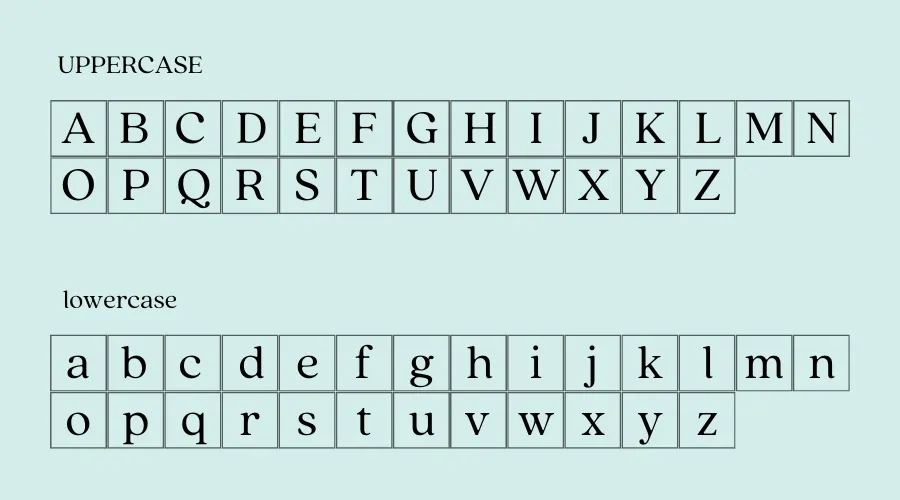
About Quincy CF Font
Today we discussed another stylish typeface that Connary Fagen created, Quincy CF is a classic, serif font that's perfect for all kinds of publications this typeface was published in 2015. The font includes eight weights from extra light to black, plus italics allowing for a range of design possibilities. this typeface is ideal for logos and headlines, as well as setting text in magazines or books.
To maintain the original look of the font, many of the glyphs have been modified and refined ensuring that everything looks sharp and consistent. Each of the eight weights has its own personality, and the italics are especially graceful and sophisticated. On top of that, the open-closed counters are specially designed to remain consistent across all sizes.